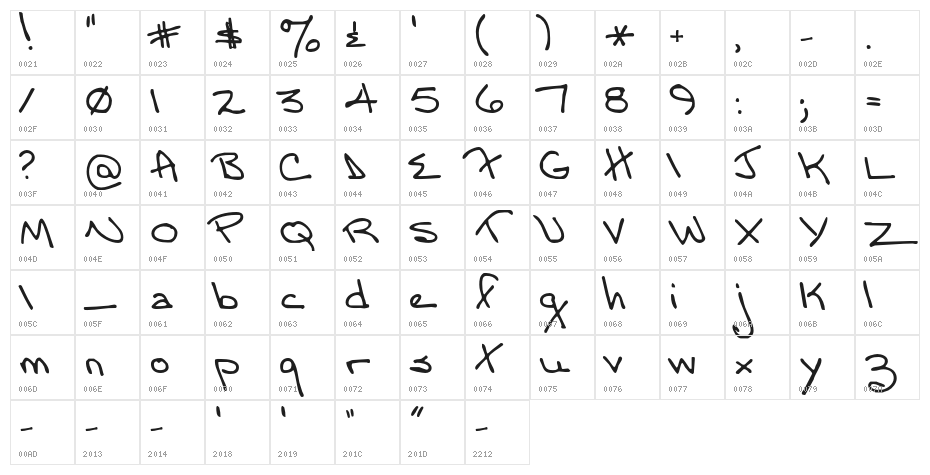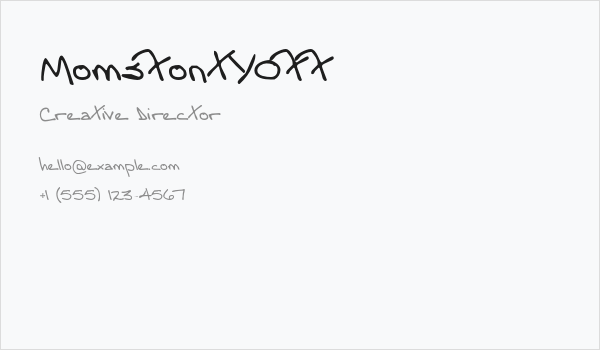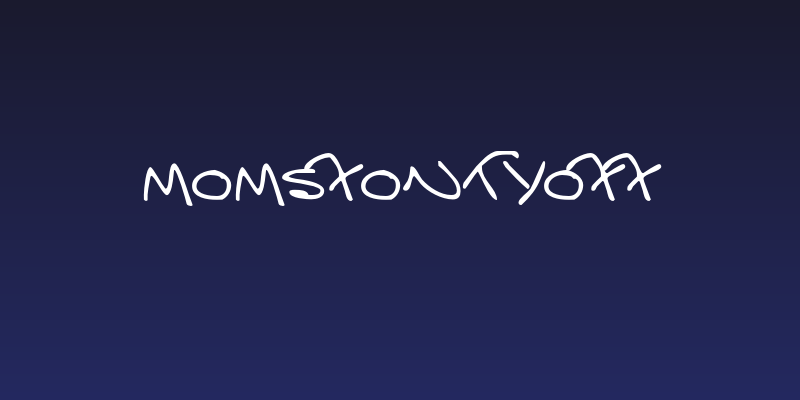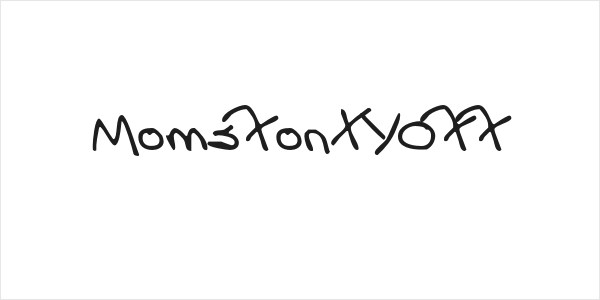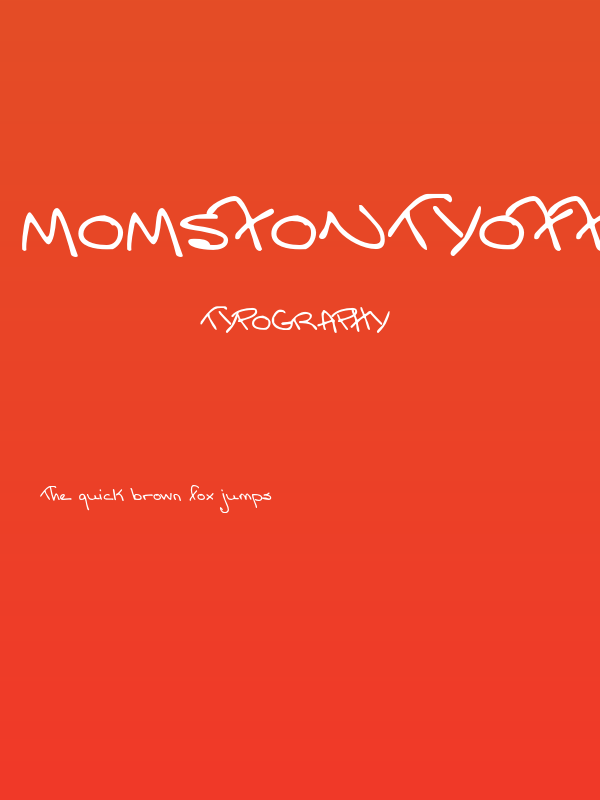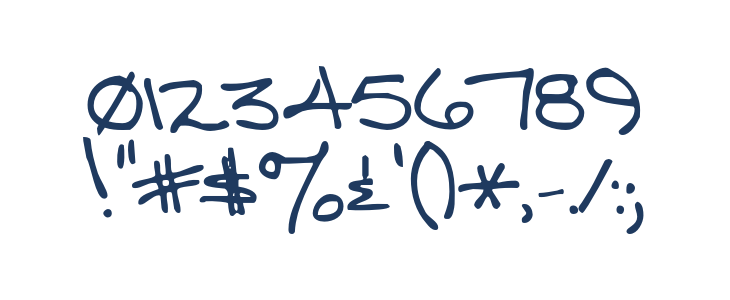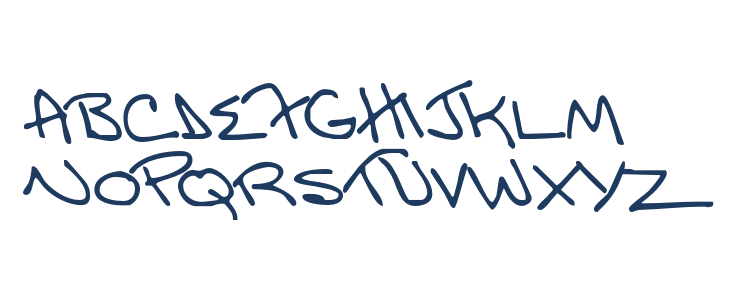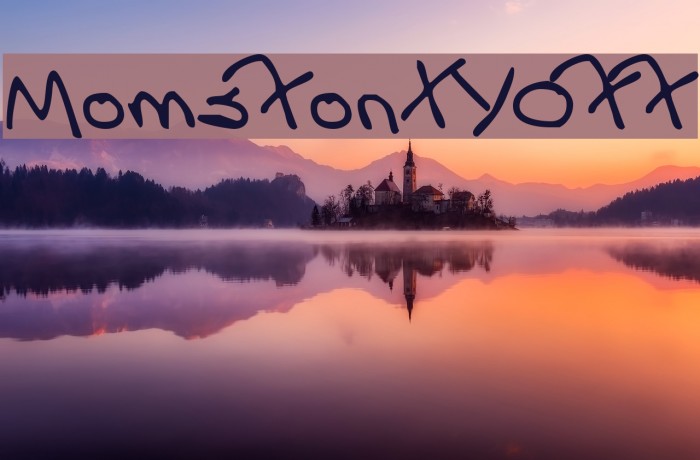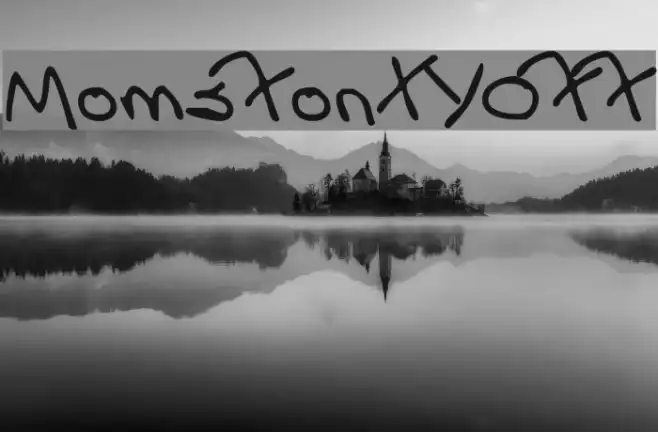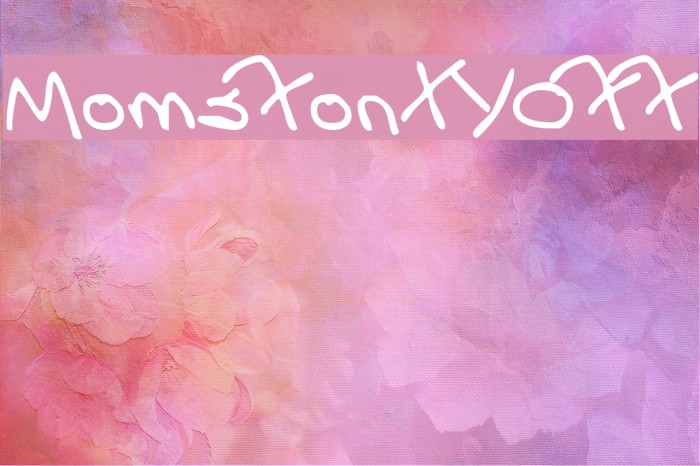
MomsFontYOFF Font
MomsFontYOFF Description
This font features a playful and casual handwritten style, characterized by its smooth, flowing lines and slightly irregular shapes. The letters have a natural, organic feel, with varying stroke widths that add a sense of dynamism and movement. The uppercase and lowercase letters maintain a consistent style, while the numbers and special characters blend seamlessly with the overall design. This font exudes a friendly and approachable vibe, making it suitable for projects that require a personal touch.
| Proposed Projects | Ideal for greeting cards, personal branding, invitations, and casual blog headers. |